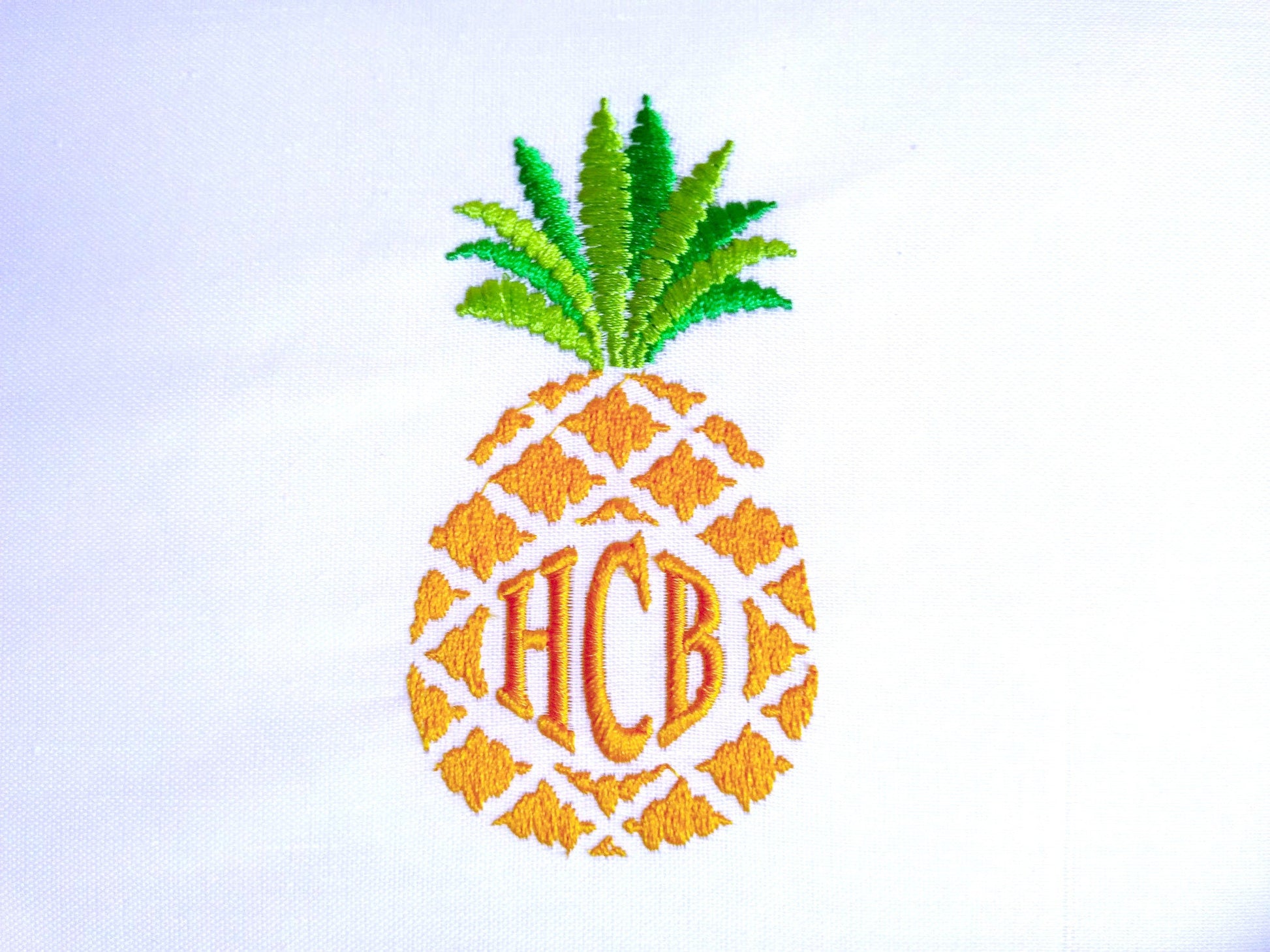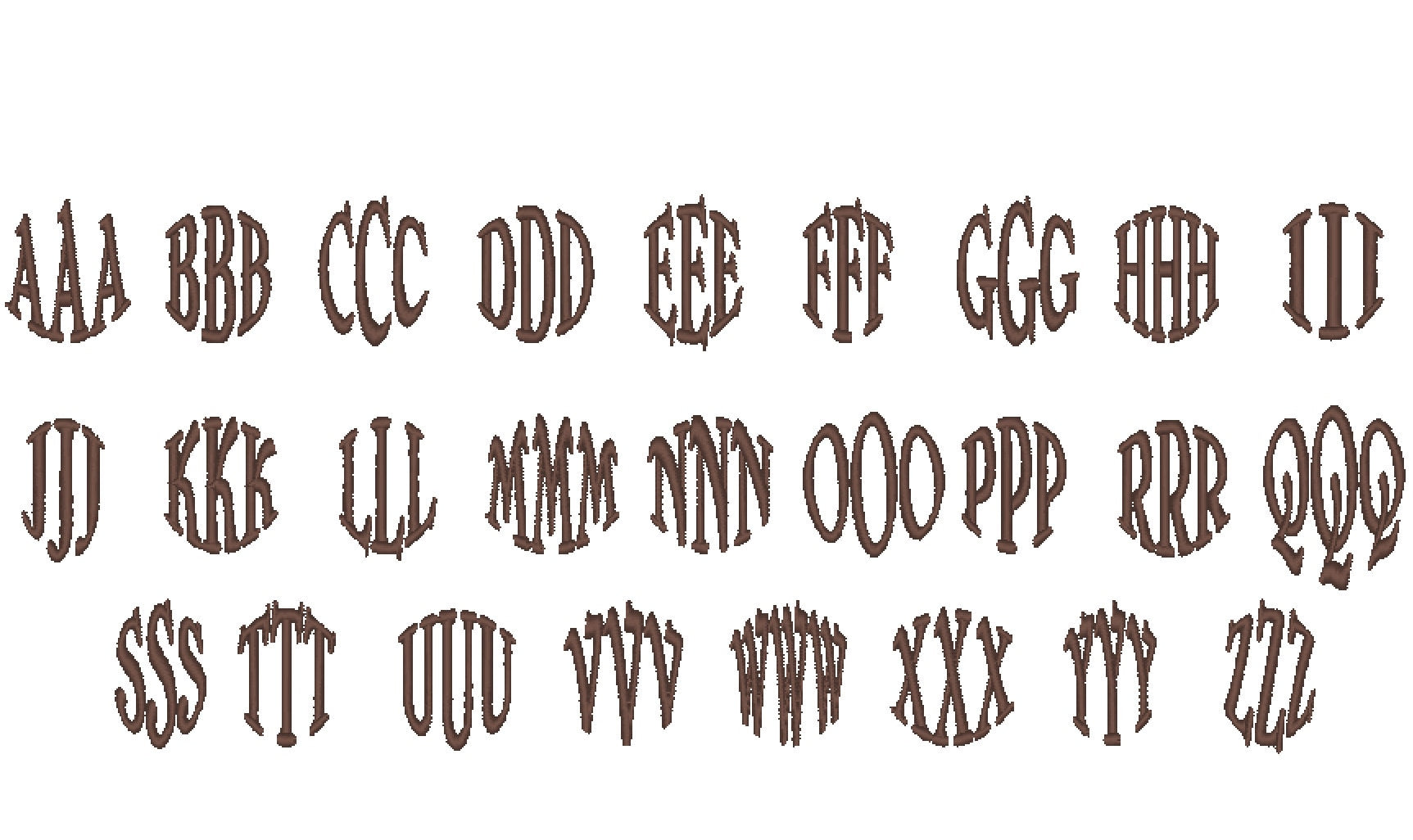
Unique Circle Monogram Assorted Sizes Monogram Font Classic Font Circle
Or click to open the linkA classic three-letter circle monogram in satin stitch. Elegant for wedding gifts, towels, pillows and linens.
78 uppercase letters: 26 left, 26 center and 26 right, which join into a round monogram. Three sizes: 1, 2 and 3 inches.
- Circle monogram, satin stitch
- 26 left, 26 center, 26 right letters
- 3 sizes: 1, 2 and 3 in